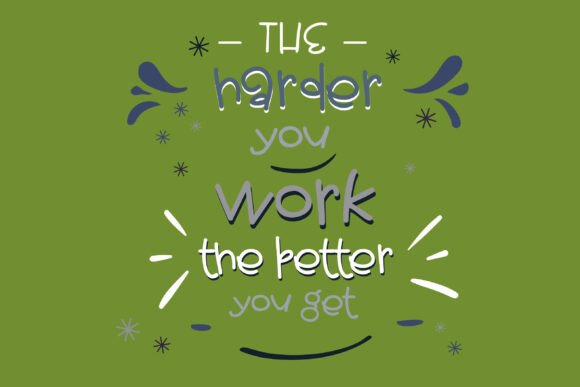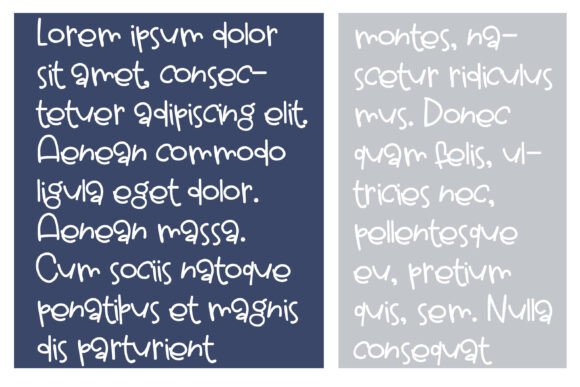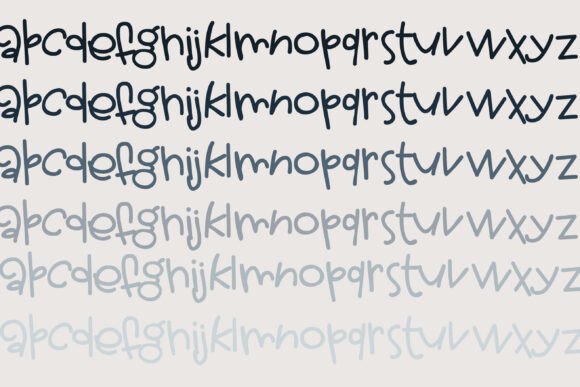
Cherrystone Font
This hand-crafted font is a youthful and fun font with a bouncy baseline.Bold version included.A hand-crafted font is a font that is designed to look like it was written by hand. It is often used for invitations, greeting cards, and other items. Handwritten fonts can be either formal or informal, and they can be used for a variety of purposes.